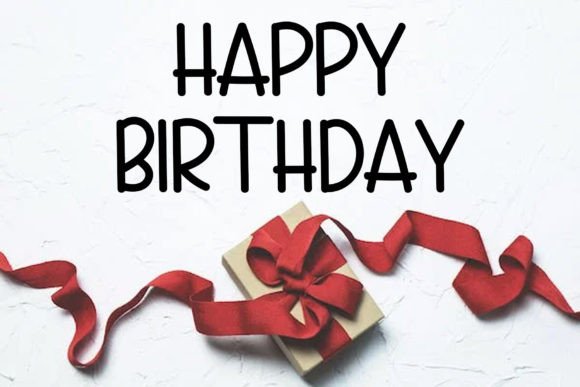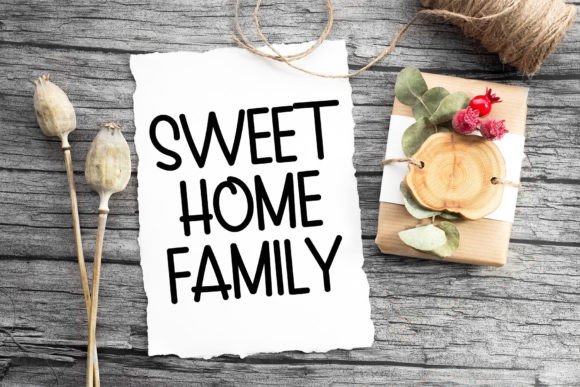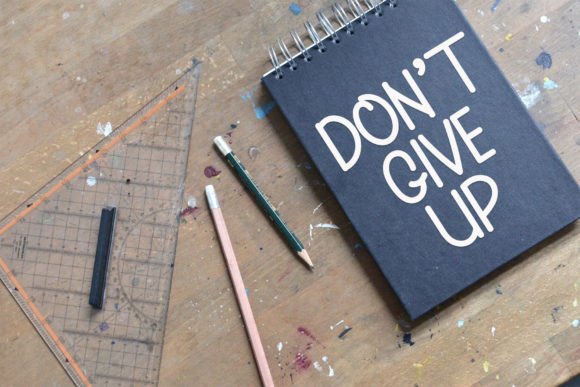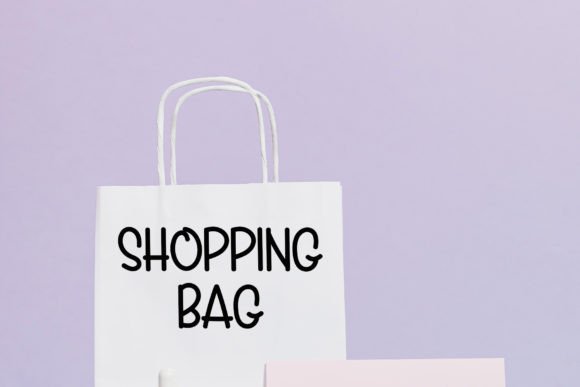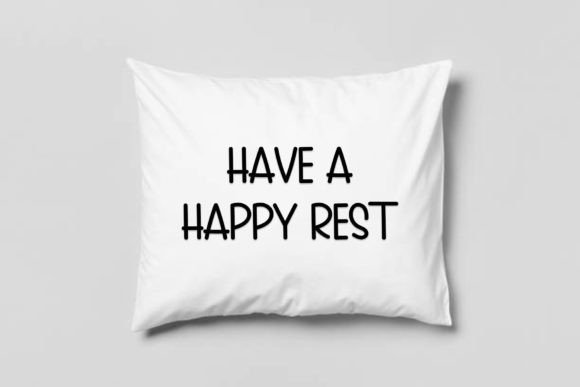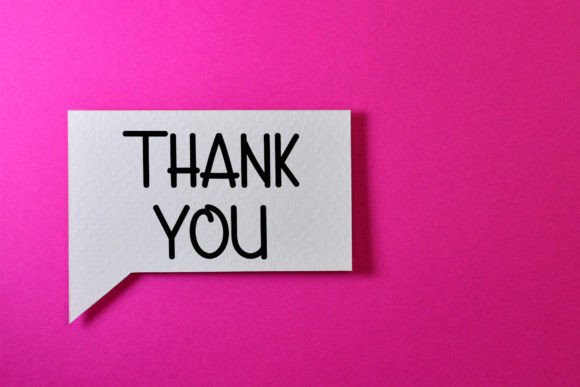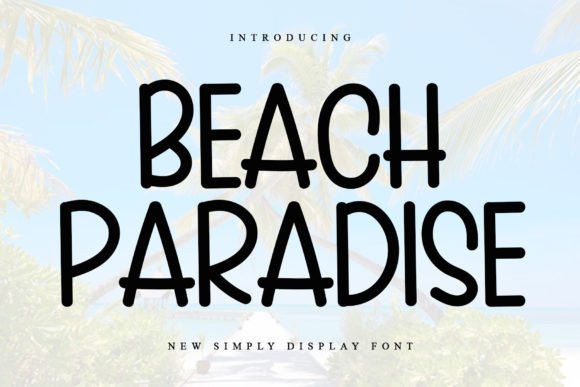
Discover the Ultimate Beach Paradise Font
Have you ever found yourself standing on the beach at sunset, feeling the warm sand between your toes and the ocean breeze in your hair? It’s moments like these that spark creativity and inspire us to bring our ideas to life. For designers, the right font can be the key to capturing the essence of such a moment and transporting it to a design. Enter Beach Paradise Font, a sweet and friendly display font that’s sure to make your designs shine.
Beach Paradise Font is the perfect addition to any design project, from beach-themed branding to travel-inspired graphics. Its natural and unique style makes it incredibly versatile, allowing you to let your imagination run wild and create something truly special. Whether you’re a seasoned designer or just starting out, this font is a valuable tool that’s sure to become a go-to favorite.
Beach Paradise Font Key Features
- Font Family: Beach Paradise Font
- Font Size: 6,000+ glyphs, including a wide range of characters and symbols
- Unique Characteristics: Hand-drawn, beach-inspired design with a playful and relaxed feel, perfect for creating a tropical or coastal atmosphere in your designs
Beach Paradise Font Review
I recently had the chance to work with the “Beach Paradise Font” and I must say it’s a unique addition to any design project. ✨ The font’s tropical vibe is perfect for anything related to summer, travel, or relaxation.
- The font’s versatility is one of its strongest points. It works well for both display headings and body text, making it easy to use in a variety of applications.
- The Beach Paradise Font also includes a range of swashes and flourishes, which can add a touch of elegance and sophistication to your designs. ✨
- The font is highly legible, even at smaller font sizes, which is a must for any font intended for digital use.
However, there are a few limitations to consider. ⚠️ The font may not be the best choice for projects that require a more formal or corporate tone, as it’s a bit too playful for those types of designs.
Overall, I think the Beach Paradise Font is a great addition to any designer’s toolkit. While it may not be suitable for every project, it’s a fun and versatile font that can add a touch of personality to your designs. With a little creativity, the possibilities are endless!
The Beach Paradise font is perfect for:
- Beach-themed designs, such as surfboards, beach towels, and more.
- Summer-themed invitations, social media posts, and graphics.
- Travel and tourism projects, such as brochures and posters.
Q: Does the Beach Paradise Font support ligatures and contextual alternates?
Yes, the Beach Paradise Font supports ligatures and contextual alternates, allowing for a more natural and varied look in your designs. These features can be accessed through your design software’s font settings or by using a font manager that supports these features.